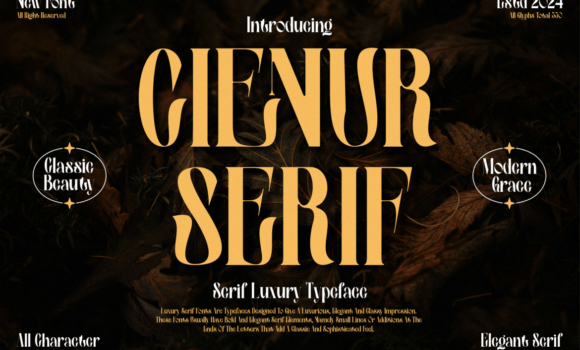
Cienur Font – Free Download Introduction to Cienur Font Introducing our new product **Cienur** – Serif Luxury Typeface This font is a type of letter that has special characteristics that create the impression of luxury, elegance and firmness. 📸 Preview